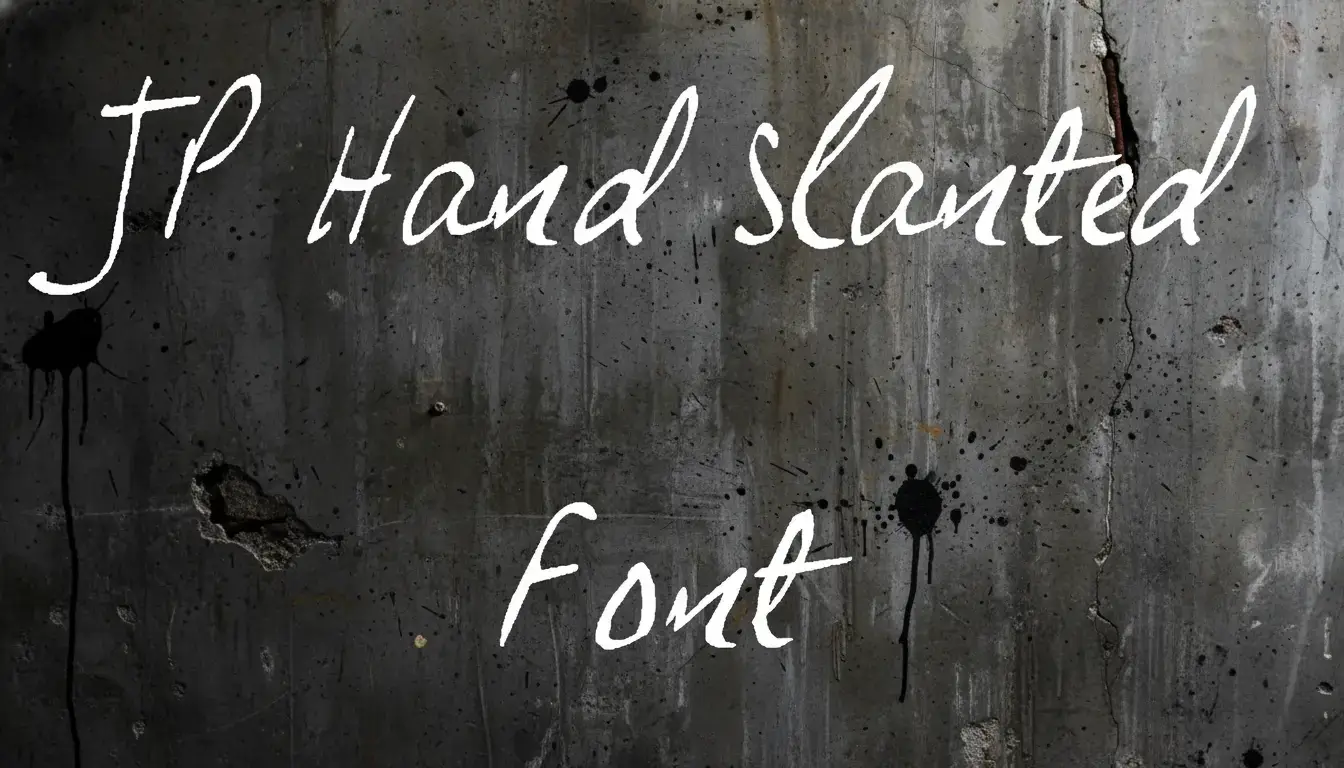
JP Hand Slanted Font
JP Hand Slanted
JP Hand Slanted is a handwritten font. It looks like someone actually wrote it by hand: relaxed, friendly and a little imperfect in a good way. You can download it for free and test it with your own words in the preview above.
What You Can Type With JP Hand Slanted
JP Hand Slanted covers the full alphabet in upper and lowercase, plus all ten numbers, so you can set names, dates and prices without switching fonts. Common punctuation such as &, !, ? and @ is included as well. It also has the accented letters you need for Spanish, French, German, Portuguese and Italian.
Where JP Hand Slanted Works Best
Designers usually reach for fonts like JP Hand Slanted when they're making greeting cards, journal pages and friendly social posts. Set it a bit larger than you would a normal text font. Handwriting styles lose their charm once they get too small to read comfortably.
Does JP Hand Slanted support accented letters?
Yes. JP Hand Slanted includes the accented letters needed for Spanish, French, German, Portuguese and Italian, so it works for more than just English.